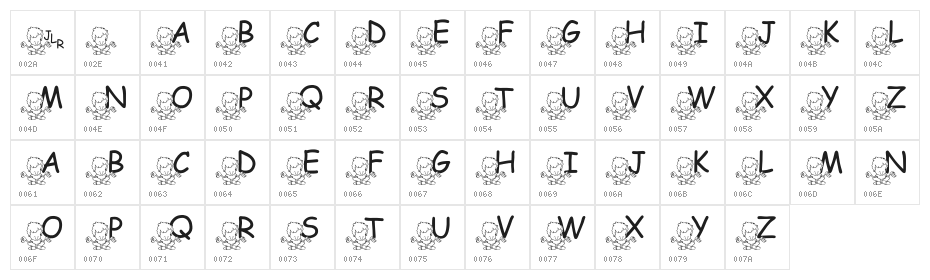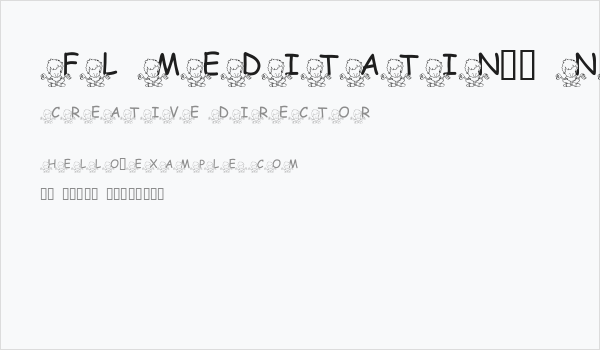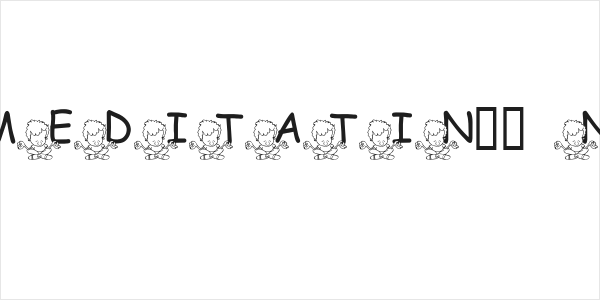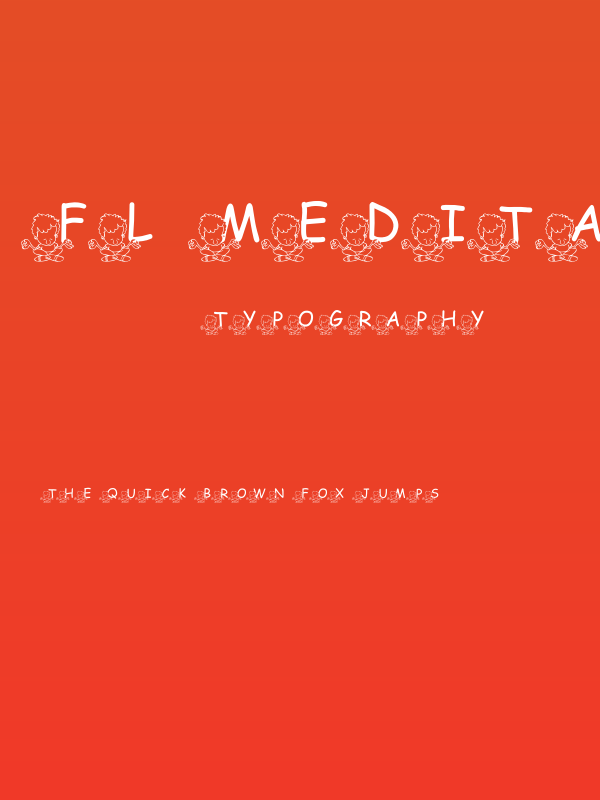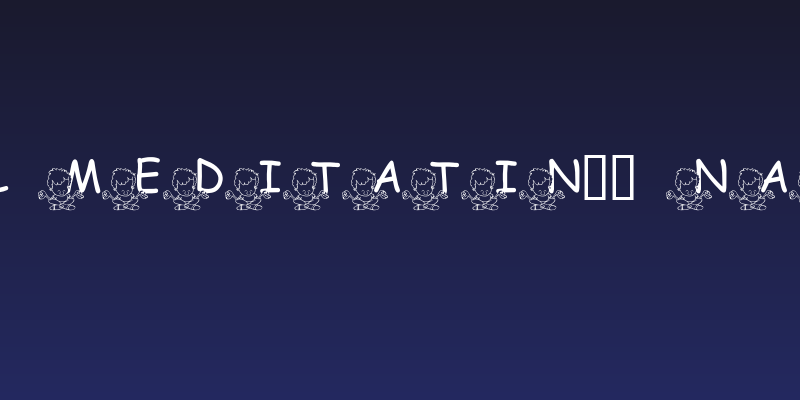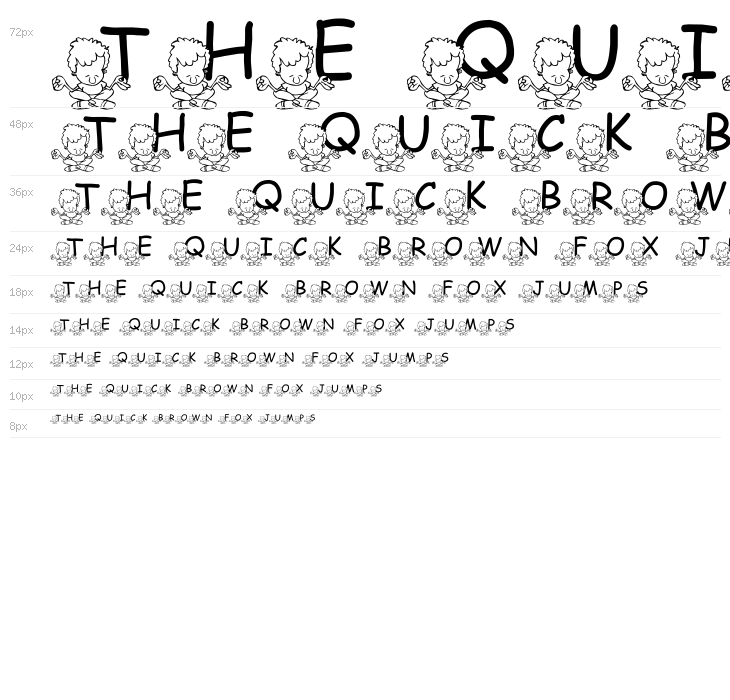
FL Meditatin' Nate Font
FL Meditatin' Nate Description
This font features a playful and whimsical design, incorporating a meditating character alongside each letter. The uppercase and lowercase letters are bold and rounded, providing a friendly and approachable appearance. The inclusion of the character adds a unique decorative element, making it stand out for creative projects. The font maintains a consistent style across all characters, ensuring readability while adding a touch of fun. The special characters are also integrated with the meditating figure, enhancing the overall theme.
| Use Case | Logos, Posters, Children's Books |
| Proposed Projects | Ideal for children's books, playful branding, yoga or meditation-themed designs, and creative posters. |